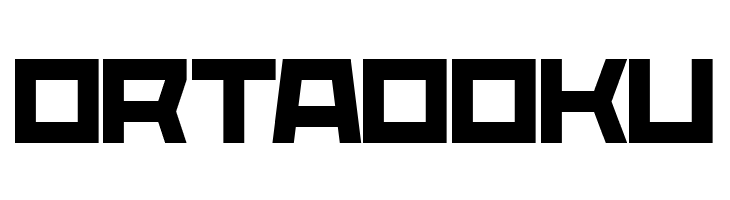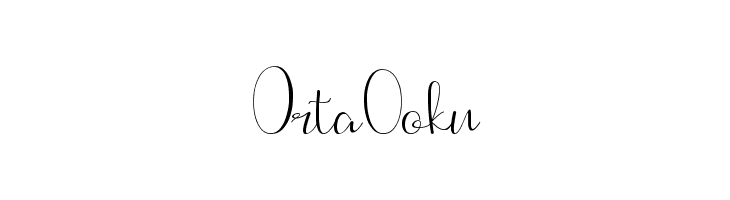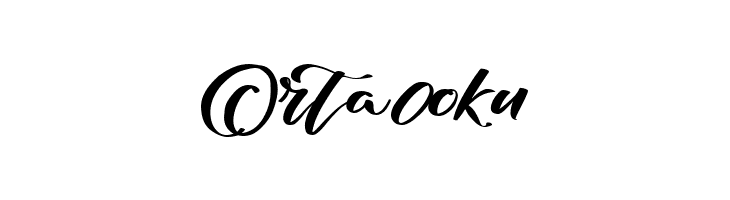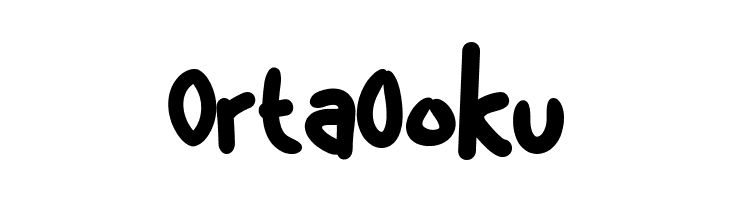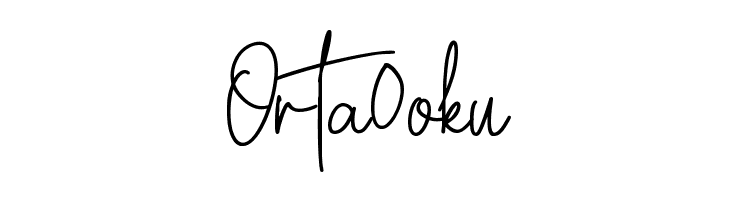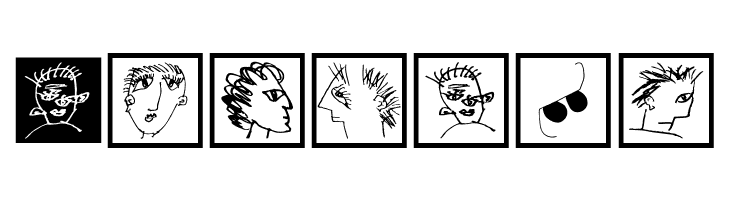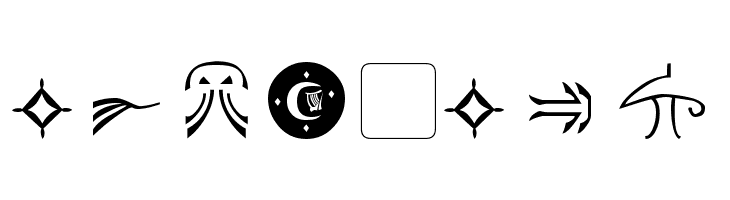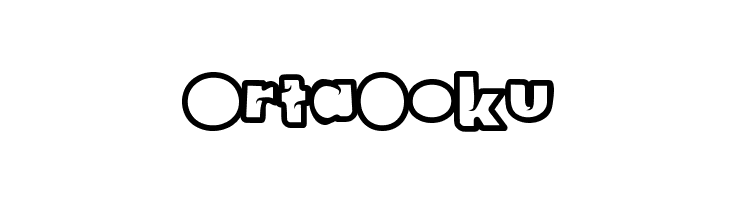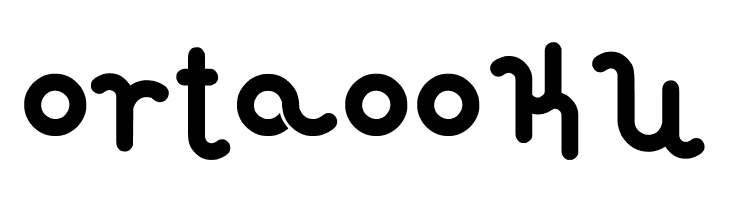
An intricate, decorative font with mystical and fantasy-inspired symbols.
A lively and elegant script font with fluid, connected letterforms and a modern classic appeal.
A playful, rounded font with smooth curves and a friendly appearance.
A bold, playful font with thick outlines and a cartoonish style.
A playful, Halloween-themed font with hand-drawn, brush-like letters.
An elegant script font with flowing, cursive strokes and high contrast.
A playful, handwritten marker-style font with bold, rounded characters.
Hand-drawn font of quirky head sketches for each character.
Energetic, handwritten script with tall, narrow forms and expressive strokes.
A bold, geometric font with a futuristic and modern design.